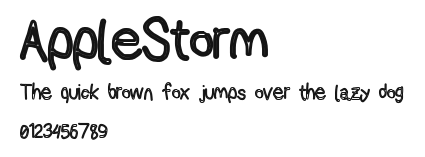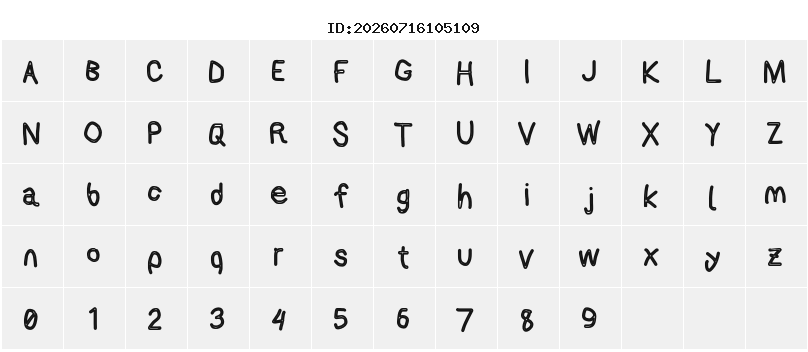
AppleStorm Preview
• Font Name: AppleStorm
• Full Font Name: AppleStorm Chalkboard
About AppleStorm.otf
AppleStorm.otf is a modern, elegant sans-serif font designed for ultimate readability and visual harmony. Perfect for branding, headlines, web design, and print materials.